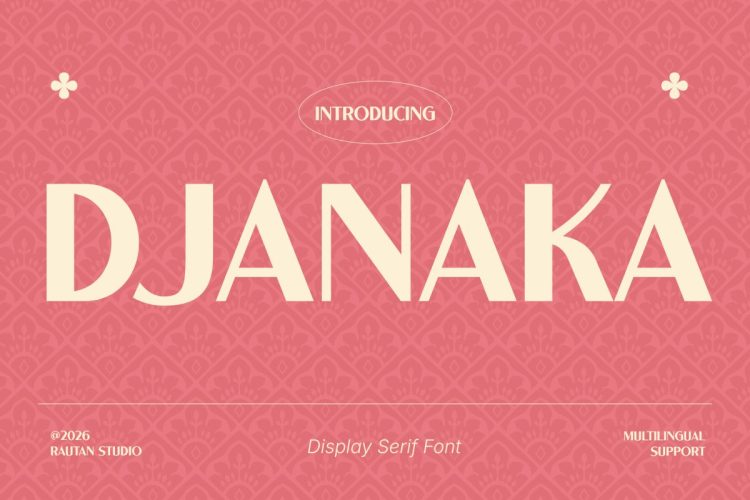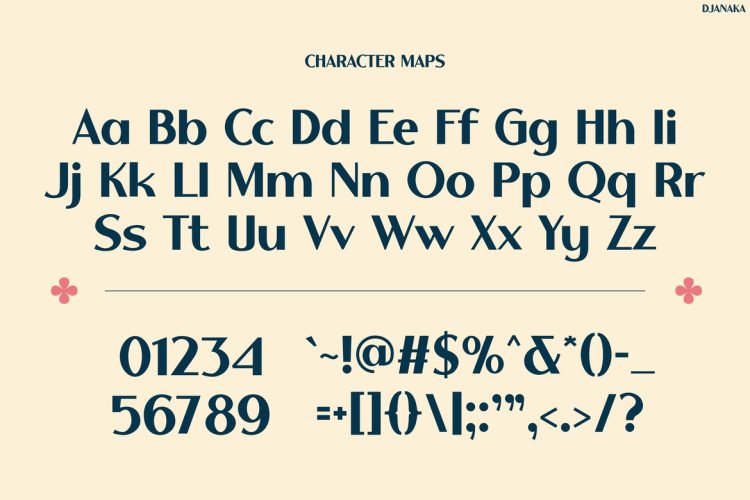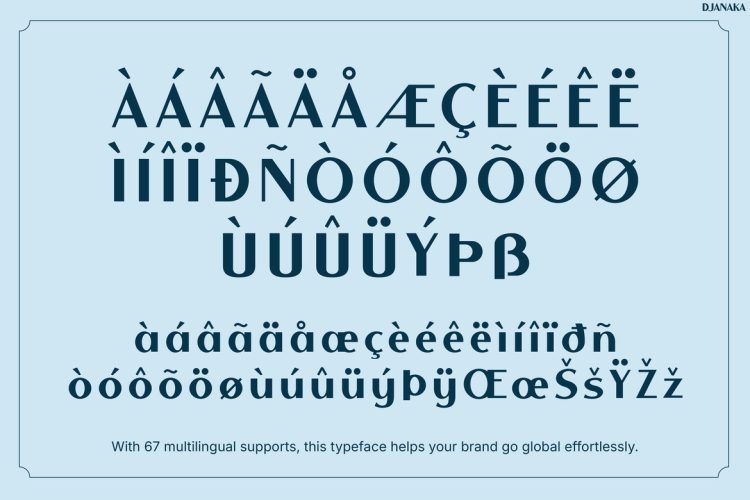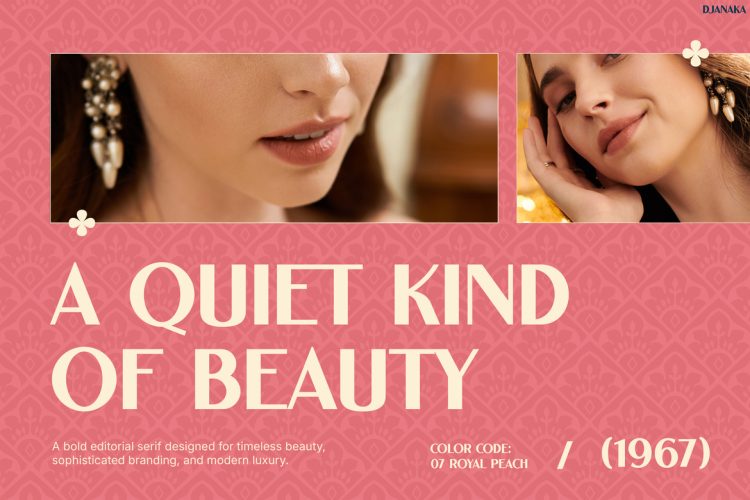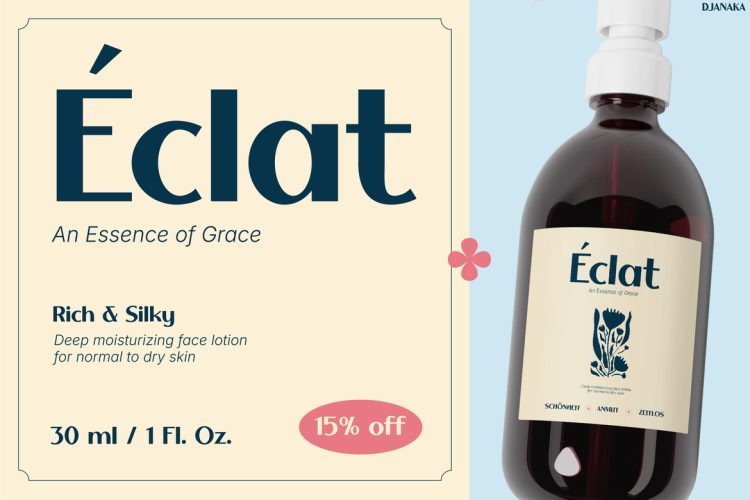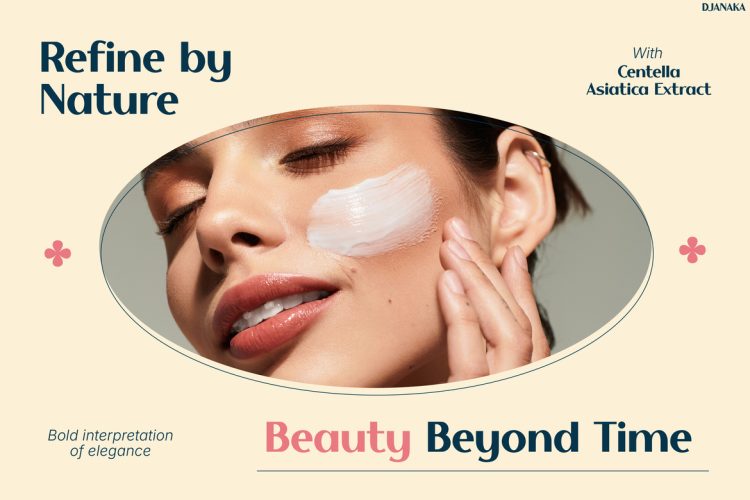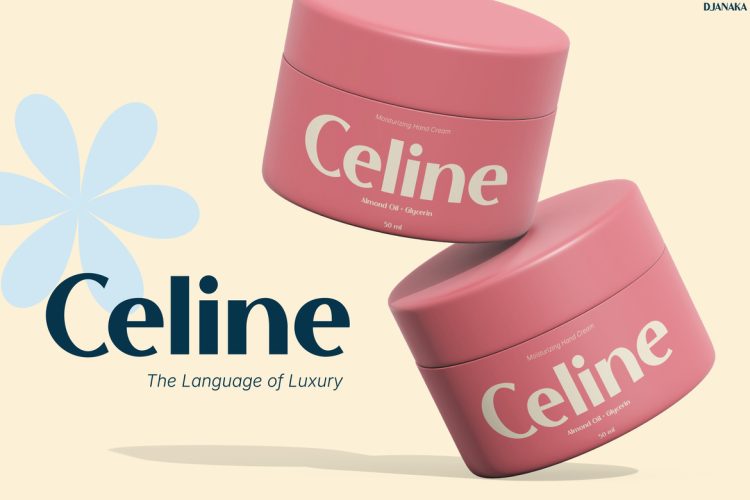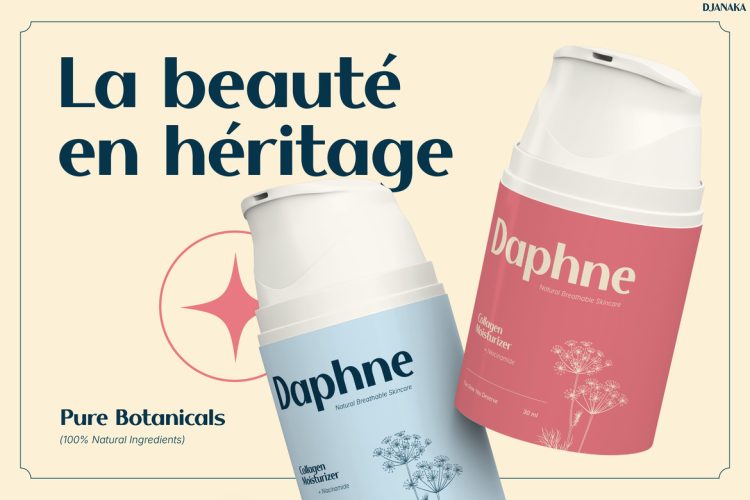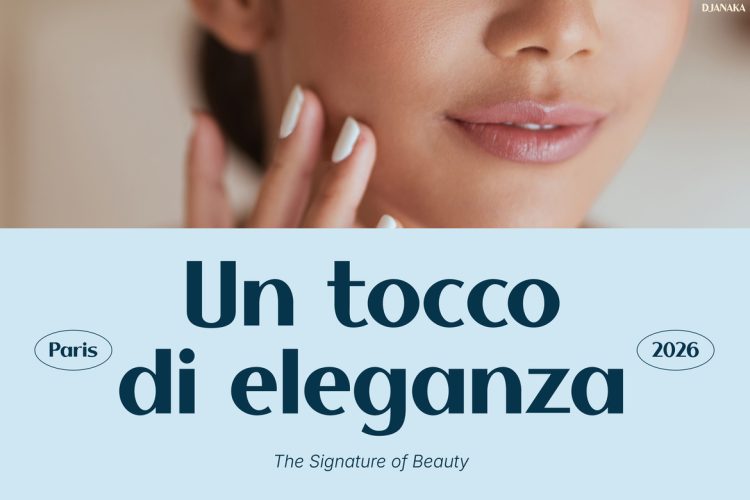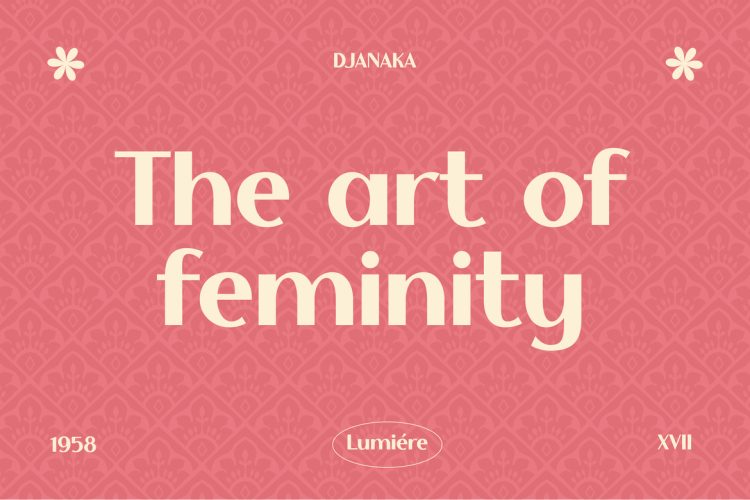
DJANAKA โ Elegant Vintage Serif for Beauty & Fashion
Vintage Font DJANAKA is a graceful display serif with a refined vintage character. Its elegant letterforms create a soft, feminine, and timeless aesthetic. With its classic serif details, DJANAKA adds sophistication without feeling too formal. Moreover, its balanced shapes work beautifully for stylish headlines and memorable brand identities. At the same time, the font keeps your message clear and visually polished. Therefore, DJANAKA is a lovely choice for designs that need beauty, elegance, and a touch of retro charm. In addition, it comes with Multilingual Support for 67 Languages.
Whether you are building a beauty brand or creating editorial artwork, DJANAKA fits right in. Furthermore, it works beautifully for fashion branding, skincare packaging, cosmetics, magazines, logos, invitations, wedding stationery, product labels, posters, social media, and lifestyle designs. Additionally, its feminine character makes it suitable for beauty studios, boutiques, photographers, designers, and creative entrepreneurs. Because of its versatile vintage style, DJANAKA can easily elevate both modern and classic projects.
Add a Touch of Elegance